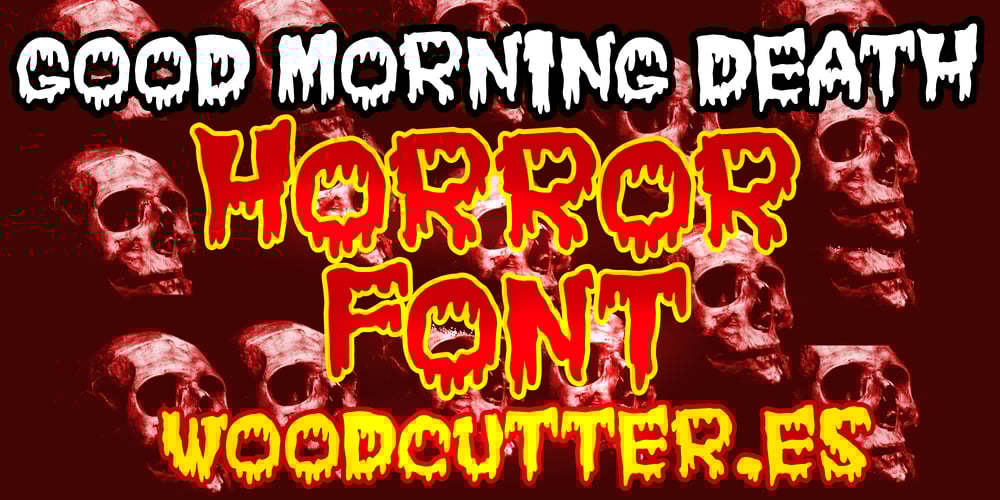
Good Morning Death
Good Morning Death font
Good Morning Death Font Family was designed by Jordi Manero and published by Woodcutter. Good Morning Death contains 1 styles and family package options. “Good Morning Death” is a font with a classic terrifying look, inspired by retro horror pulp fonts. Its uppercase letters evoke the style of old horror movie posters, with a nostalgic and chilling touch. Ideal for titles and headlines that aim for a strong visual impact, “Good Morning Death” includes accents for complete linguistic versatility. Each character looks as if it were taken from a dark horror story, bringing a sinister and vintage atmosphere to your designs.